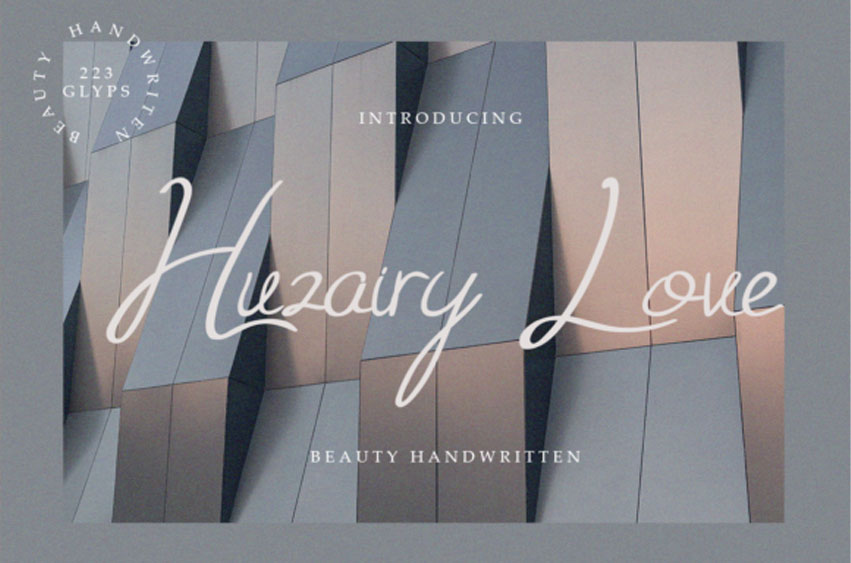
Huzairy Love Font
Huzairy Love Font feels equally charming and elegant. It looks stunning on wedding invitations, thank you cards, quotes, greeting cards, logos, business cards and every other design which needs a customized touch.